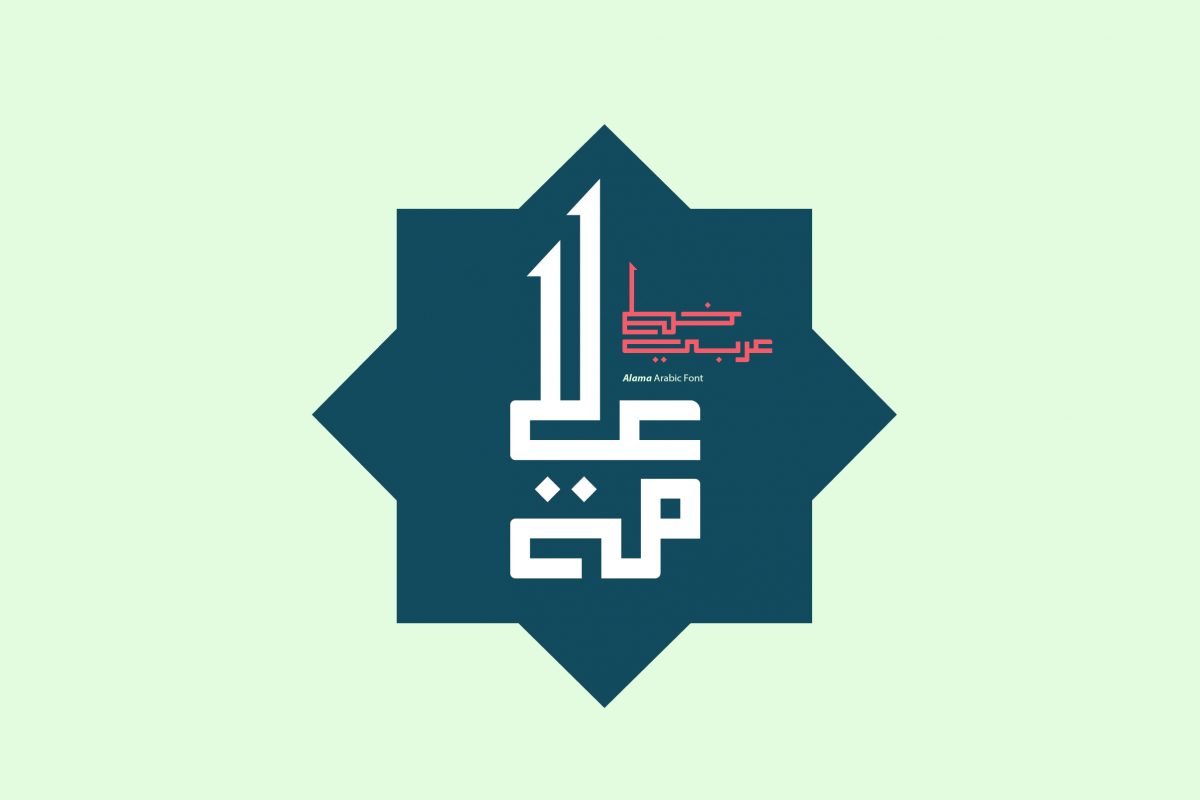
Alama - Arabic Font
Alama (the Arabic for ‘Sign’, ‘Label’ or ‘Logo’)is an Arabic display font that features geometric letterform design. This font is suitable for branding and visual identities. It also suits typographic compositions and web design. Alama comes in two weights (Regular and Bold) and it supports Windows, Mac and mobile applications.